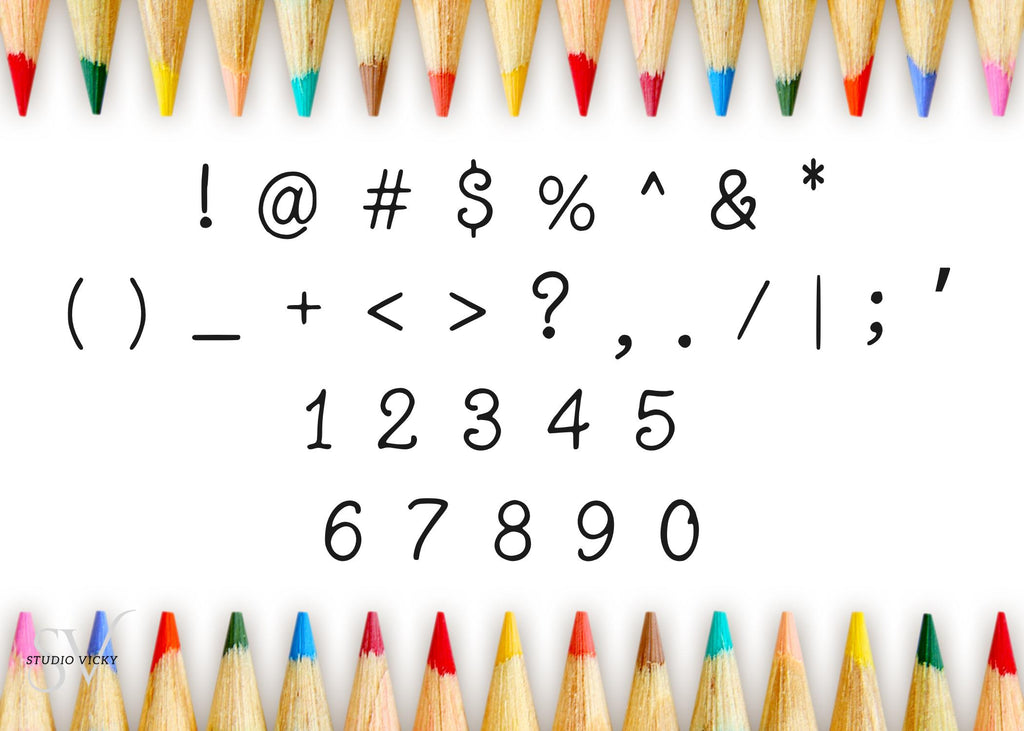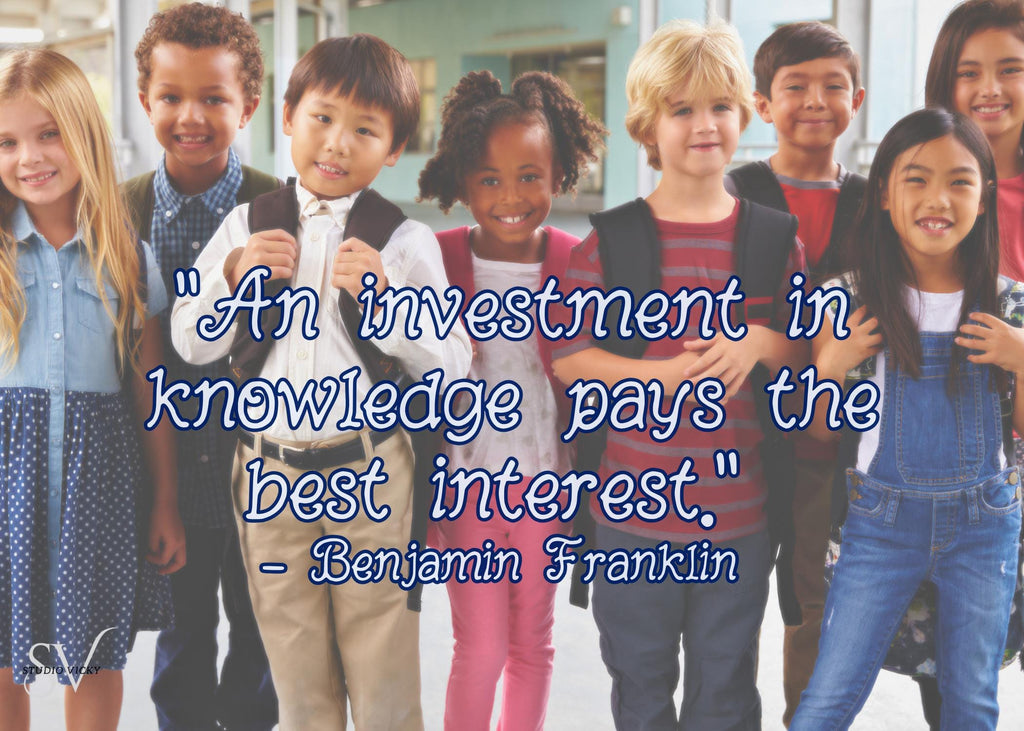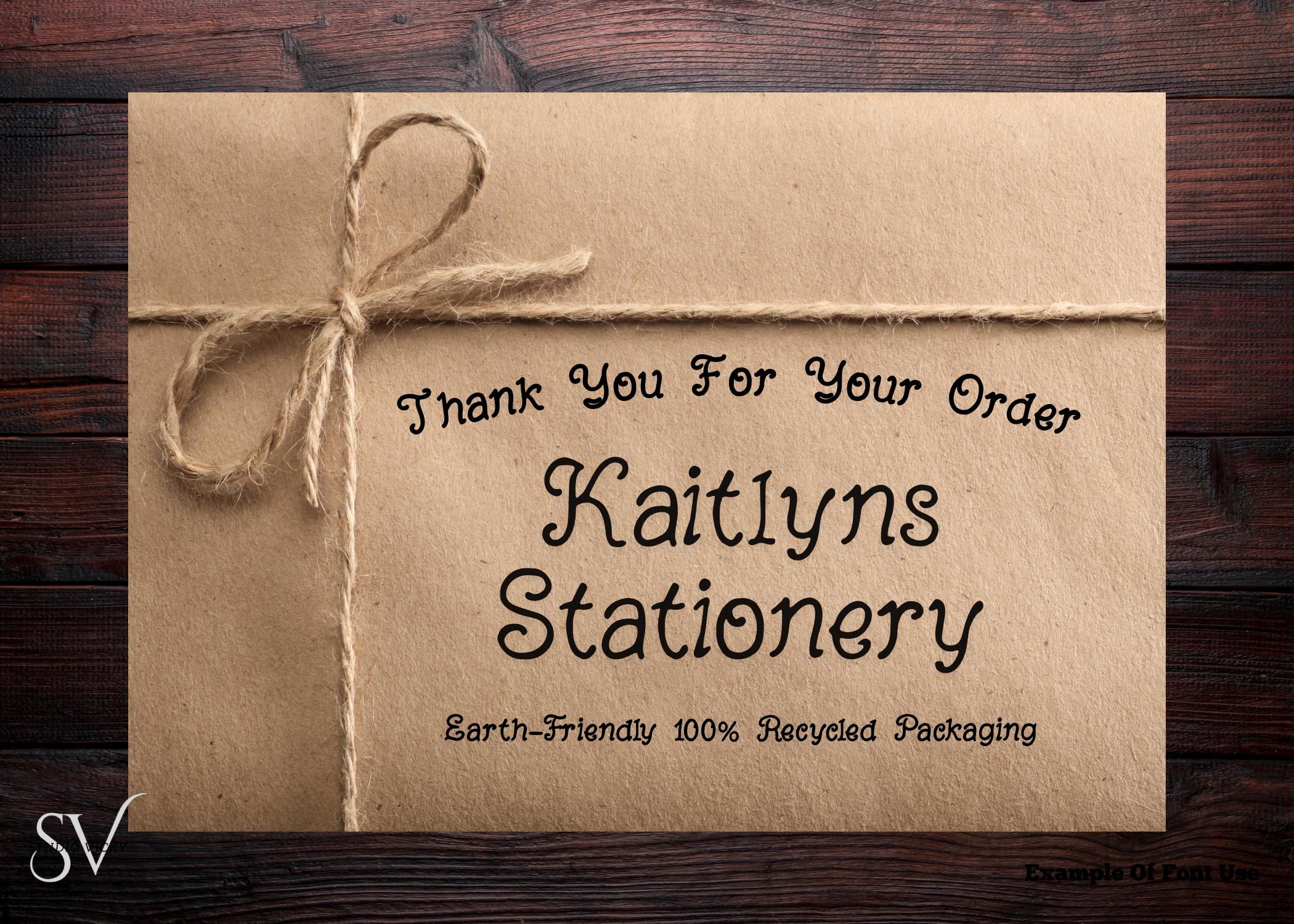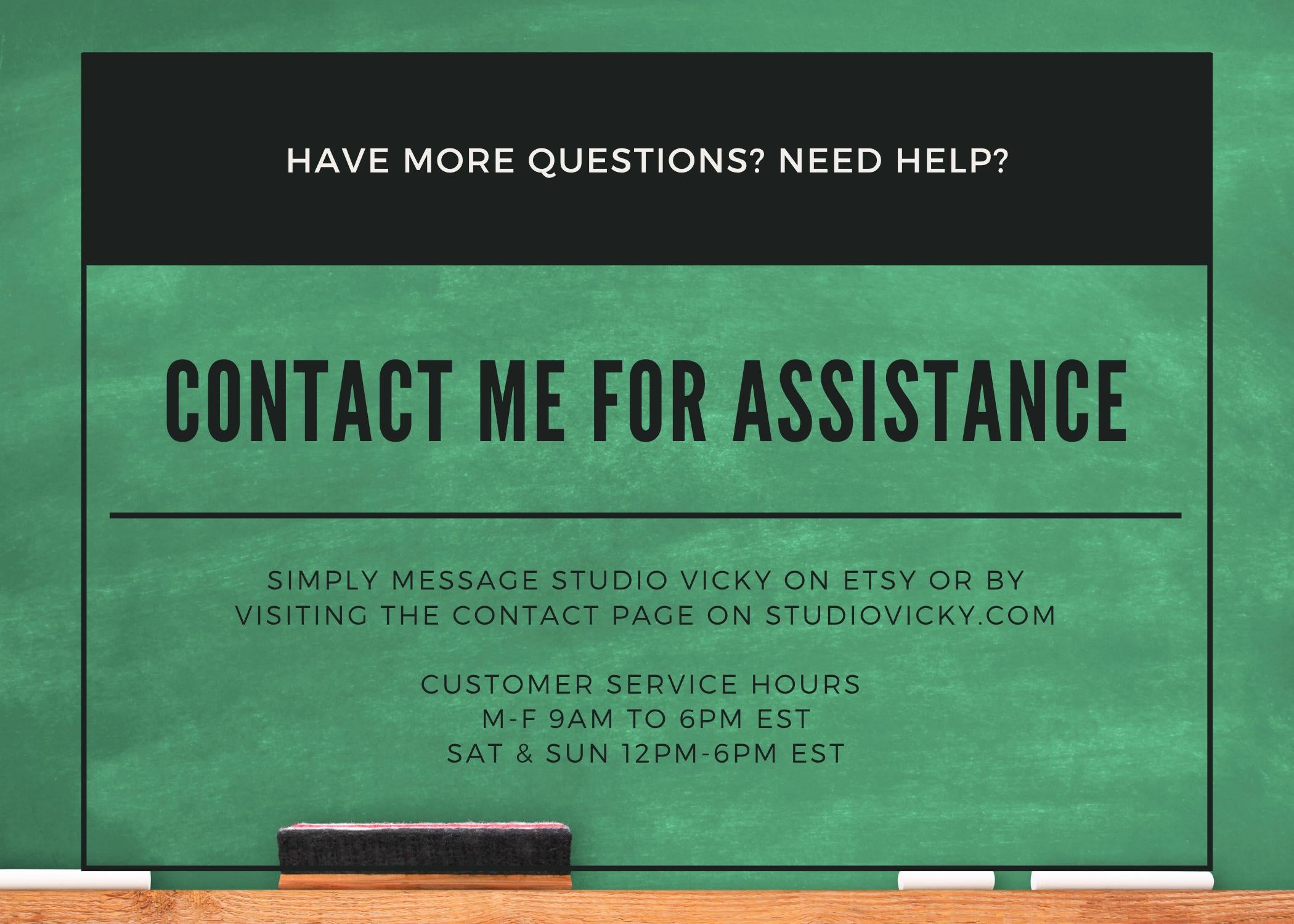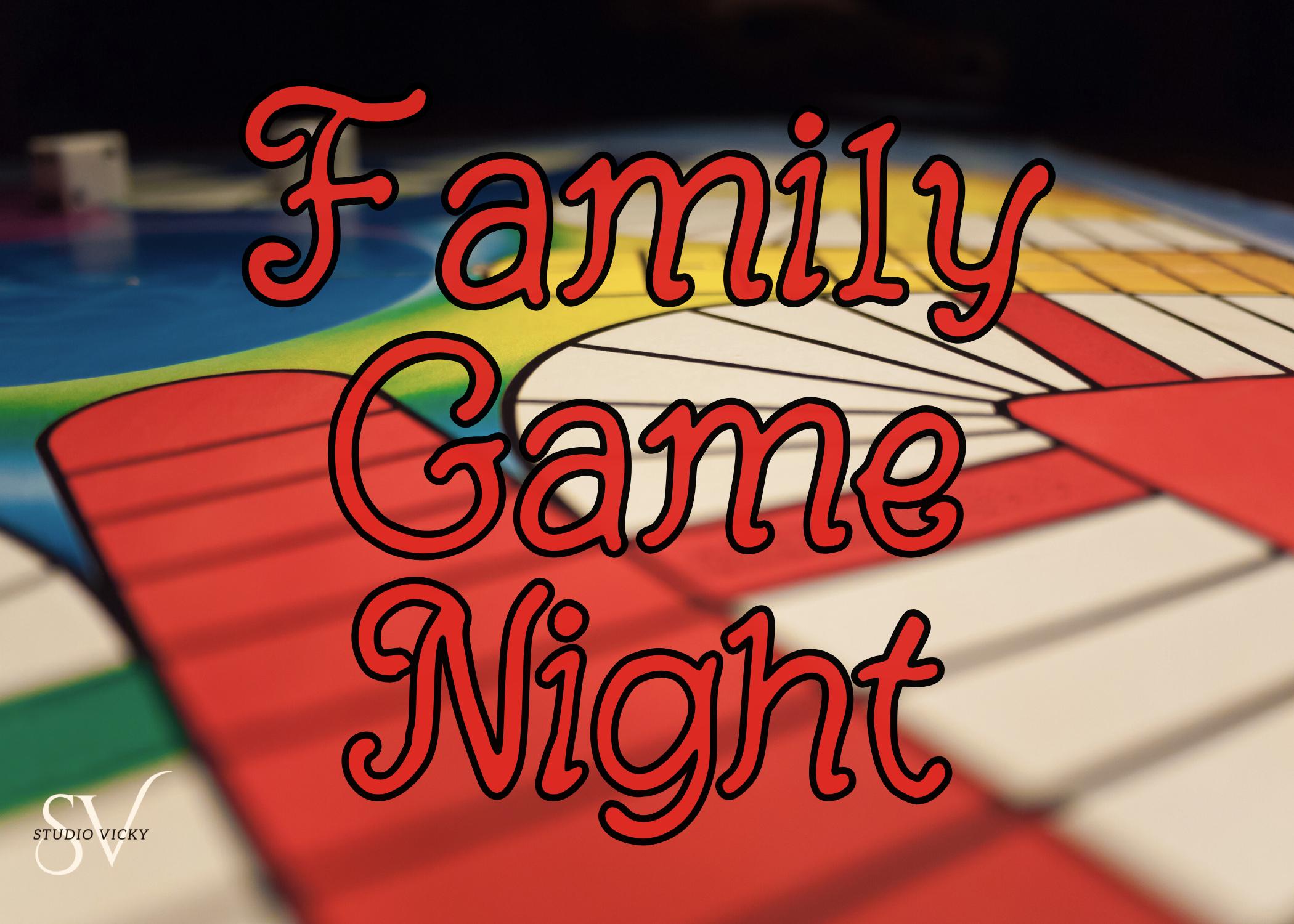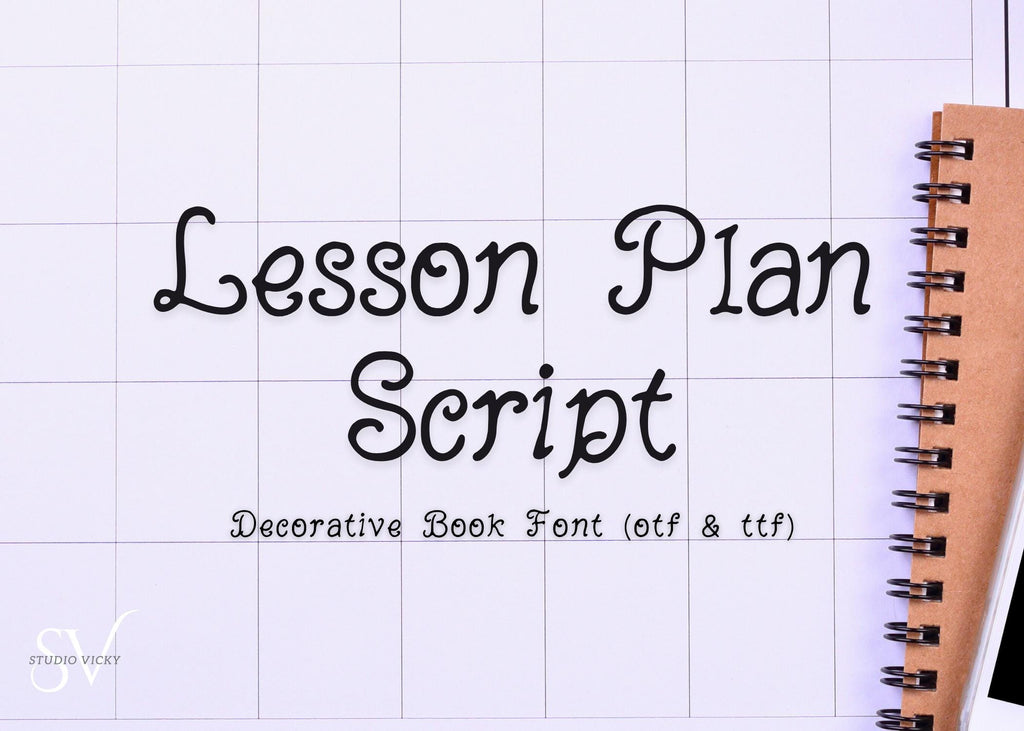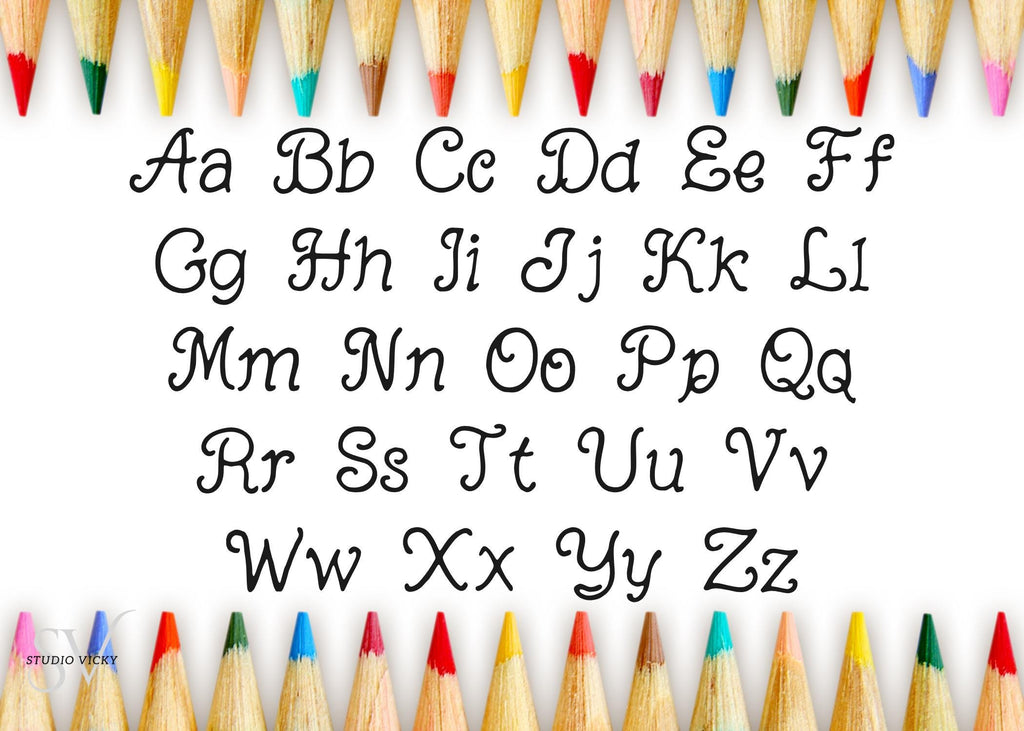
Bring a touch of charm and personality to your classroom printables, worksheets, and creative projects with Lesson Plan Script, a casual handwritten font that feels just like jotting notes on the chalkboard. Designed with educators and creators in mind, this versatile script is easy to read, playful without being messy, and perfect for everything from lesson plans and name tags to digital stickers and educational social posts.
Whether you're crafting curriculum materials, designing classroom decor, or just love that neat-teacher-handwriting aesthetic, Lesson Plan Script is your go-to font for friendly, legible, handwritten style.
✔️ Smooth lines for cutting machines and clean print quality
✨ Great for:
• Teachers & homeschooling resources
• Planners and stickers
• Labels, flashcards, and poster signs
• Branding with a casual, handwritten vibe on social media